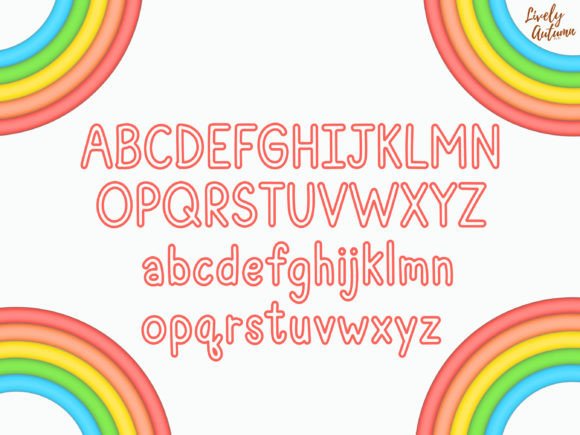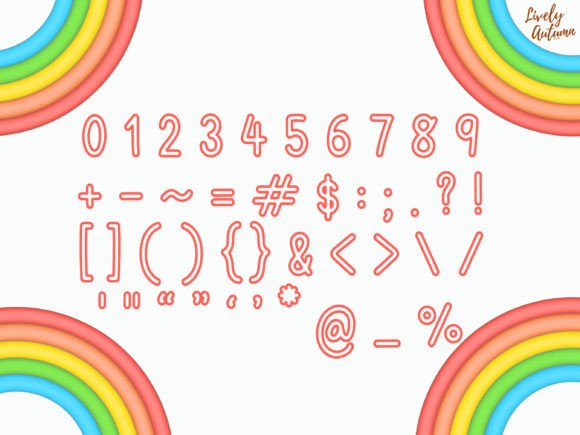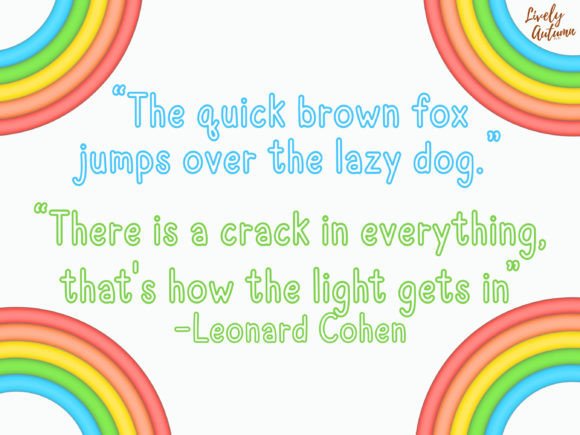
Introducing Clay Font: The Sweet and Friendly Handwritten Font
Are you tired of using the same old fonts in your designs? Look no further than Clay Font, a sweet and friendly handwritten font that’s perfect for a wide range of projects. With its natural and unique style, Clay Font is incredibly versatile and can be used in everything from branding and advertising to crafting and DIY tutorials.
The Characteristics of Clay Font
So, what makes Clay Font so special? For starters, its handwritten style gives it a personal and approachable feel that’s hard to find with more traditional fonts. The letters are carefully crafted to have a natural, uneven quality that makes them look like they were written by hand. This gives your designs a sense of warmth and personality that’s sure to resonate with your audience.
Another key feature of Clay Font is its uniqueness. Unlike more generic fonts that can feel bland and uninspired, Clay Font has a distinct character that sets it apart from the crowd. Its letters are carefully shaped and proportioned to create a sense of visual interest and harmony, making it perfect for designs that need a little extra something special.
The Benefits of Using Clay Font
So, why should you choose Clay Font for your next project? For one, its versatility is hard to beat. Whether you’re working on a logo, a brochure, or a social media graphic, Clay Font is sure to fit the bill. Its friendly and approachable style makes it perfect for designs that need to connect with a wide range of audiences, from kids to adults.
Another benefit of using Clay Font is its ability to add a personal touch to your designs. In an age where digital communication dominates, a handwritten font like Clay can help you stand out and connect with your audience on a more personal level. This is especially important for crafters and makers who want to add a human touch to their branding and marketing materials.
How to Use Clay Font in Your Designs
One of the best things about Clay Font is its flexibility. It can be used in a wide range of design contexts, from digital graphics to print materials. It’s also highly legible, making it perfect for designs that need to communicate a clear message. Whether you’re creating a logo, a poster, or a social media graphic, Clay Font is sure to help you get your point across.
Examples of Clay Font in Action
So, what does Clay Font look like in action? Here are a few examples of how it can be used in different design contexts:
• Branding and Logo Design: Use Clay Font to create a friendly and approachable logo that’s perfect for businesses that want to connect with their audience on a personal level.
• Crafting and DIY Tutorials: Add a personal touch to your crafting and DIY tutorials with Clay Font, perfect for creating handmade signs, labels, and other materials.
• Social Media Graphics: Use Clay Font to create eye-catching social media graphics that stand out from the crowd and connect with your audience.
In conclusion, Clay Font is a sweet and friendly handwritten font that’s perfect for designers and crafters who want to add a personal touch to their designs. With its natural and unique style, Clay Font is incredibly versatile and can be used in a wide range of design contexts. Whether you’re working on a logo, a brochure, or a social media graphic, Clay Font is sure to help you connect with your audience and stand out from the crowd.